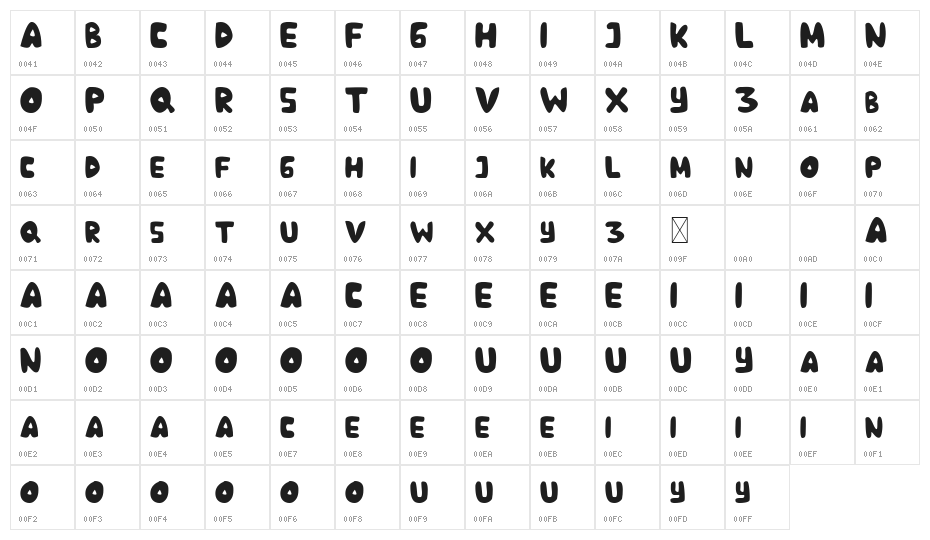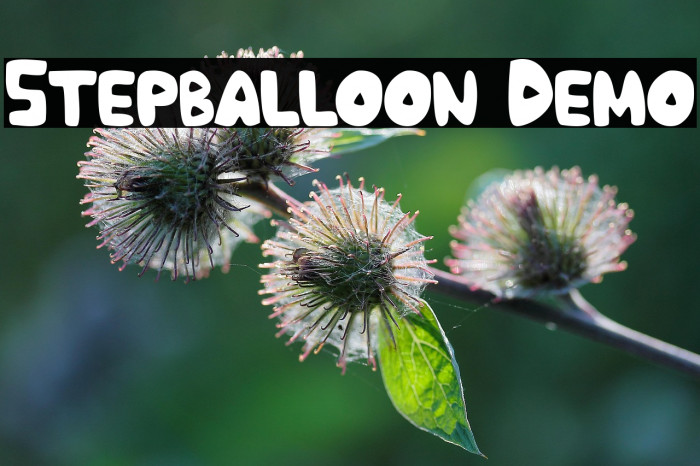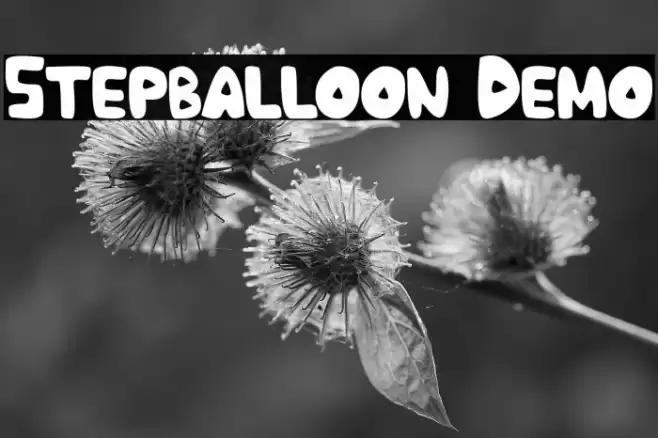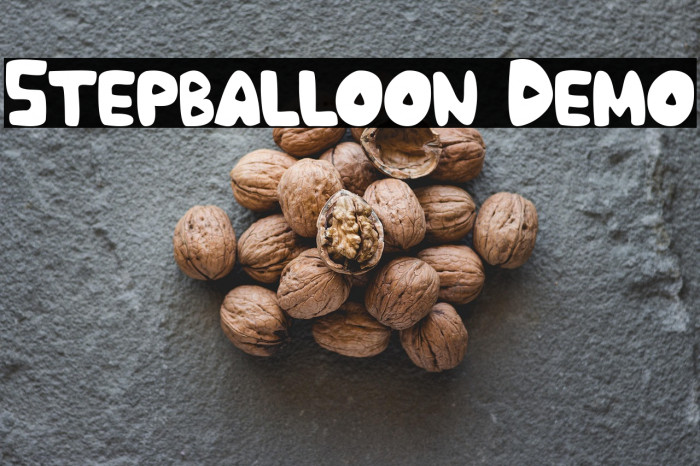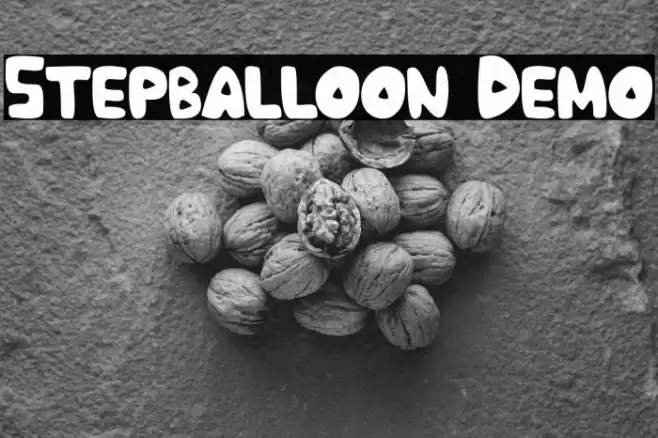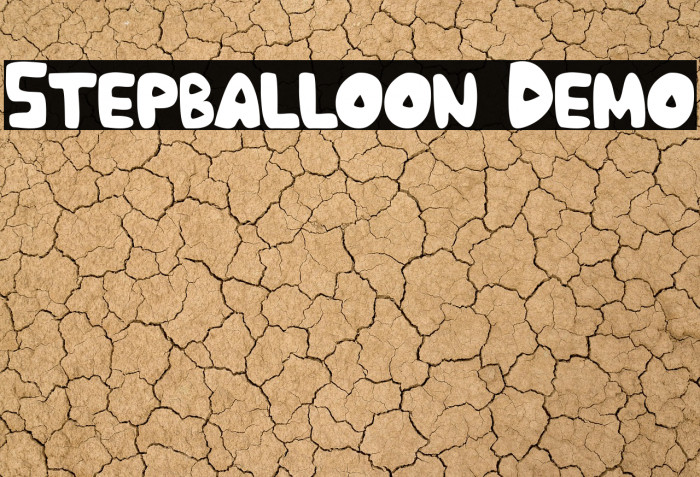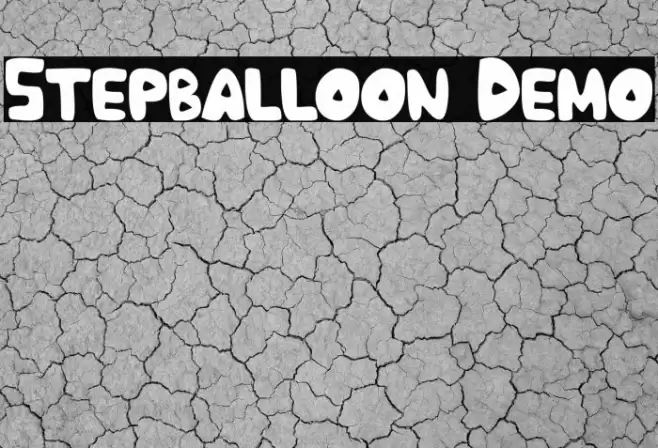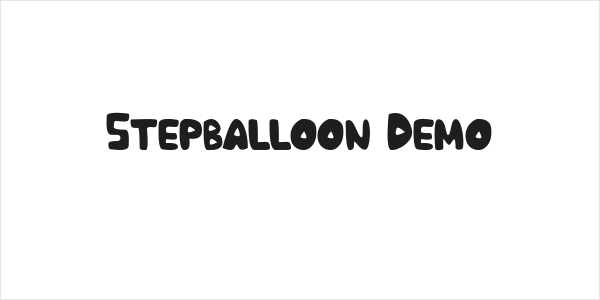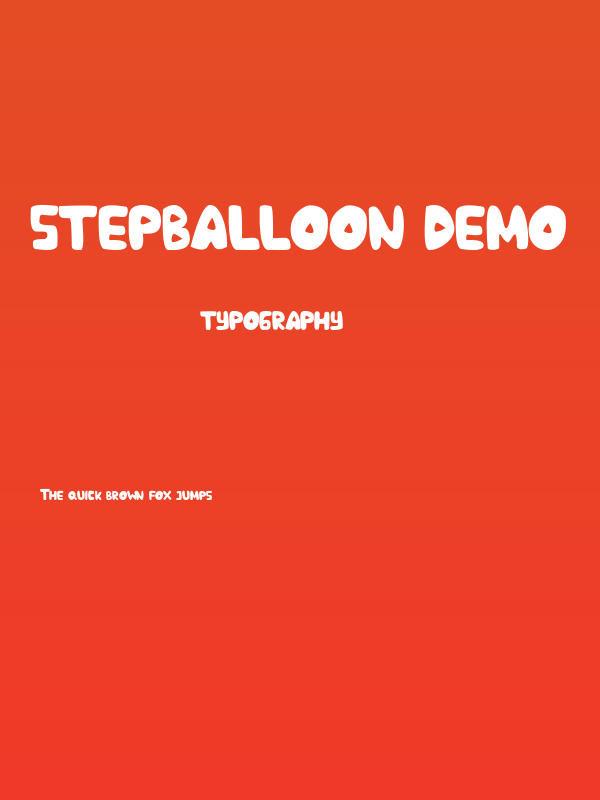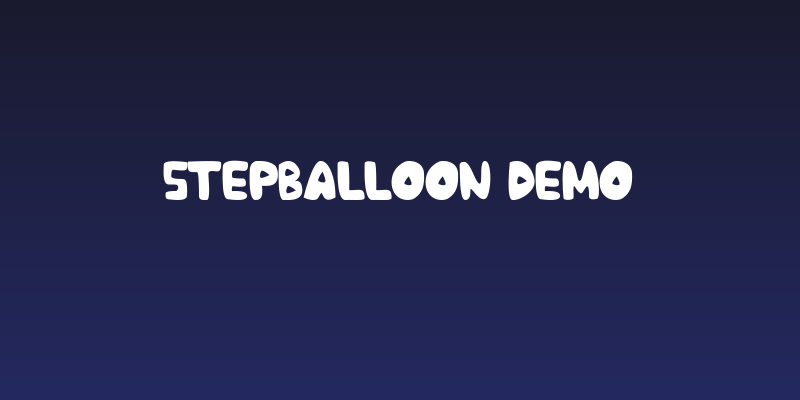
Stepballoon Demo Font
Stepballoon Demo Description
This playful and bold font features rounded, balloon-like characters that convey a sense of fun and whimsy. The thick, uniform strokes give it a strong presence, making it ideal for eye-catching designs. Its unique style is characterized by smooth curves and a slightly irregular shape, adding to its charm and appeal. The font maintains a consistent weight throughout, ensuring readability while still being visually striking. Its friendly and approachable appearance makes it suitable for a variety of creative projects.
| Proposed Projects | Ideal for children's books, party invitations, playful branding, and posters. |